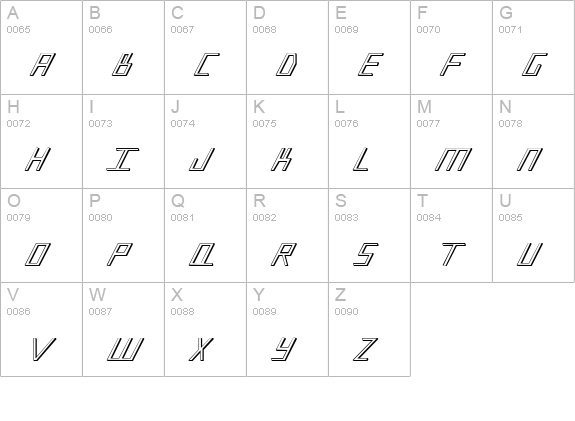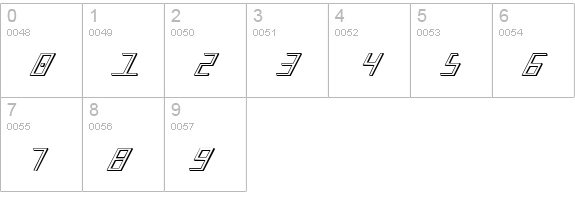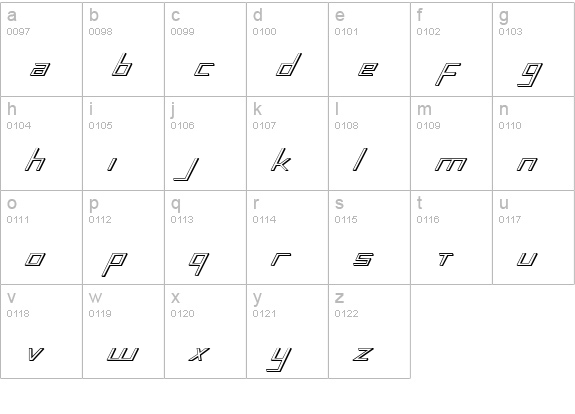
Blue July 3D Font Details
Blue July 3D font is a stunning and eye-catching typeface that brings a touch of modernity and sophistication to any design project. With its three-dimensional effect and bold, futuristic style, this font is perfect for making a statement and standing out from the crowd. What sets Blue July 3D font apart is its unique blend of elegance and innovation, making it a versatile choice for a wide range of applications, from branding and advertising to packaging and web design. Its sleek and polished appearance adds a touch of professionalism to any project, while its distinctive 3D effect adds depth and dimension. Best of all, Blue July 3D font is available for free download at FontsMarket.com, making it easily accessible to designers and creatives looking to add a touch of flair to their work. Whether you're working on a personal project or a client's campaign, this font is sure to make a bold impression and elevate your designs to the next level.